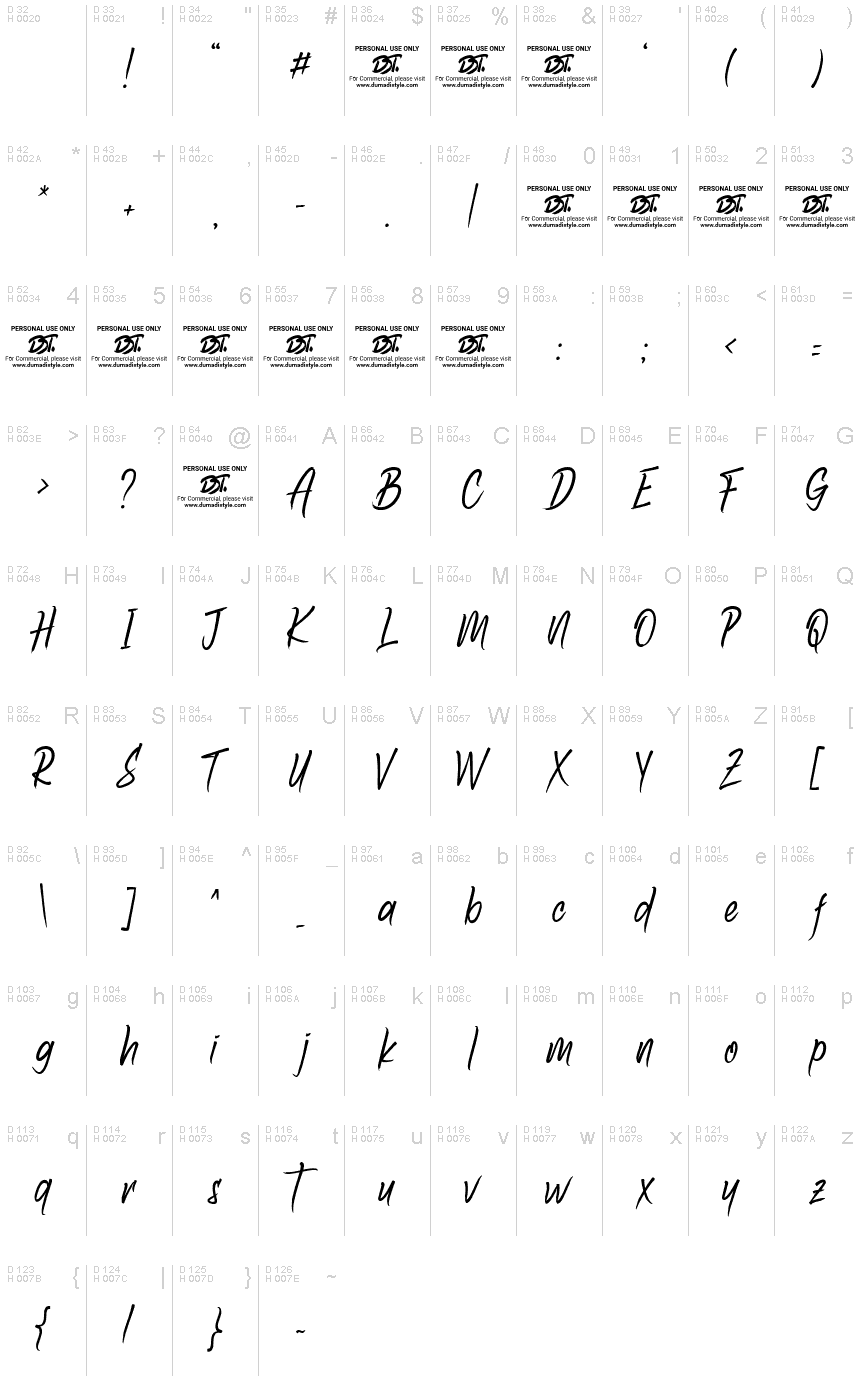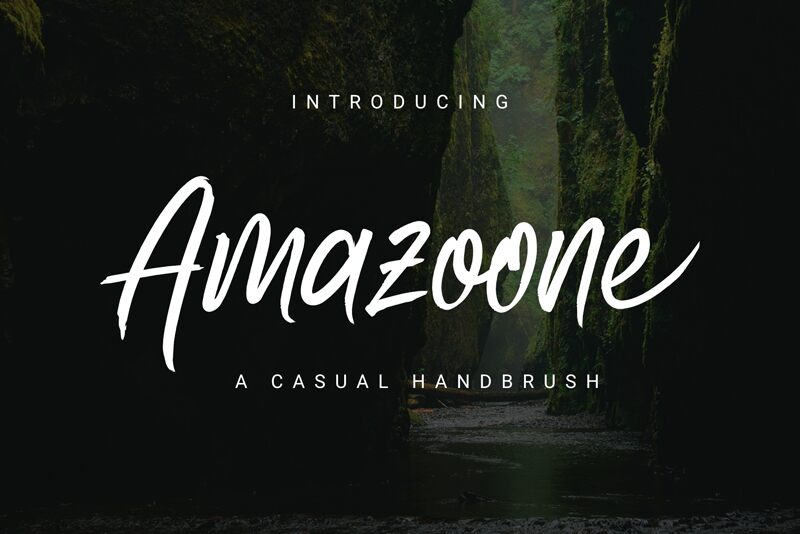
Amazoone
Introducing Amazoone, the handbrush font designed by Toni Dzulham. With its semi-light weight, this font is perfect for creating an authentic and organic look in your designs. Its playful yet rustic style makes it suitable for a variety of projects, from wedding invitations and greeting cards to branding and packaging designs. Use it to add a personal touch to your social media graphics or create eye-catching headlines for your blog posts. Amazoone is the perfect choice for anyone looking to add a touch of whimsy and charm to their designs.